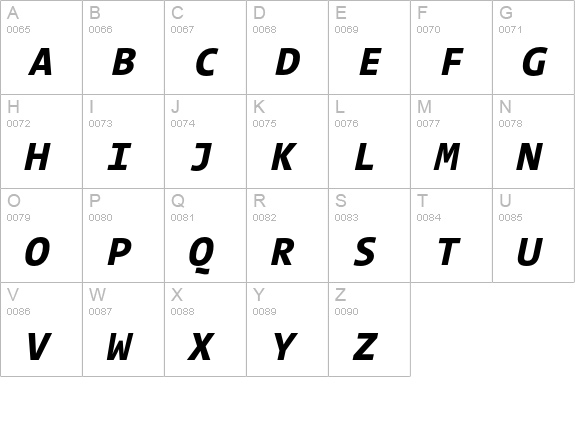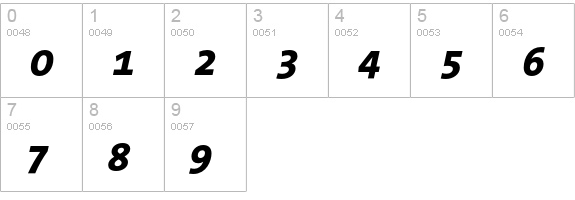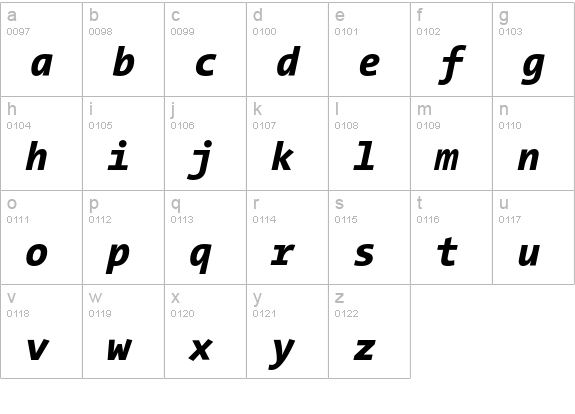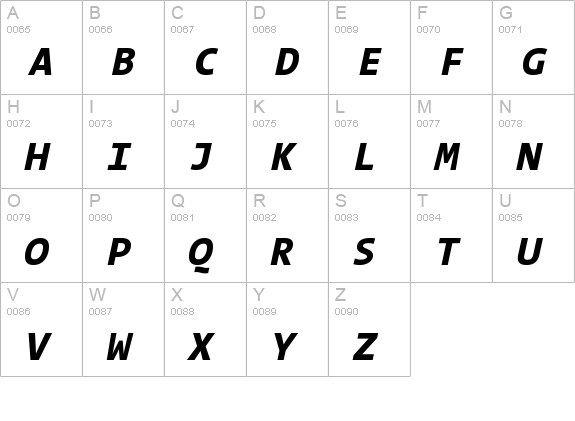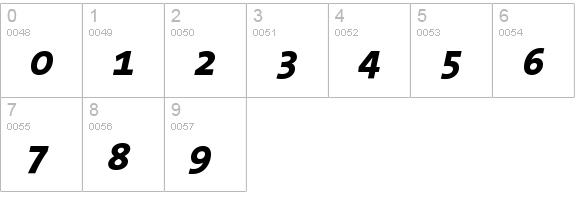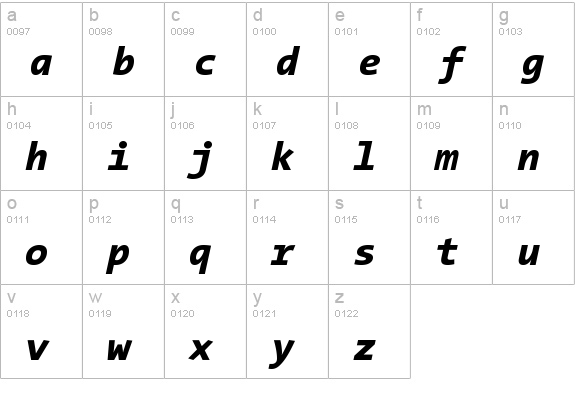
TheSansMono Extra Bold Italic is a strong, high-contrast, italic variant in the TheSansMono typeface family \xE2\x80\x94 well suited to headlines, attention-grabbing titles, and strong calls-to-action.
TheSansMono Extra Bold Italic font is a versatile and dynamic typeface that exudes a strong and commanding presence. Its bold and italicized design adds a touch of sophistication and elegance, making it perfect for any project that requires a bold statement. This font offers a unique blend of modernity and classic appeal, making it suitable for a wide range of applications. Whether you're designing a logo, creating a poster, or crafting a headline, TheSansMono Extra Bold Italic font is sure to grab attention and leave a lasting impression. One of the greatest features of this font is that it is freely available to download at FontsMarket.com. This means that you can access and utilize this powerful typeface without any cost or restrictions. It allows you to explore your creativity and enhance your designs without breaking the bank. TheSansMono Extra Bold Italic font is meticulously crafted with precision and attention to detail. Its clean lines and sharp edges provide excellent legibility, even at smaller sizes. The boldness of the letters adds a sense of strength and confidence, while the italicized slant adds a touch of elegance and flair. With its wide range of characters and symbols, TheSansMono Extra Bold Italic font is incredibly versatile. It supports multiple languages and can be used for a variety of design projects. From corporate branding to editorial layouts, this font will bring a professional and refined look to your work. In conclusion, TheSansMono Extra Bold Italic font is a powerful and eye-catching typeface that is freely available to download at FontsMarket.com. Its bold and italicized design, coupled with its versatility and legibility, make it a perfect choice for any project. Download it today and elevate your designs to new heights.